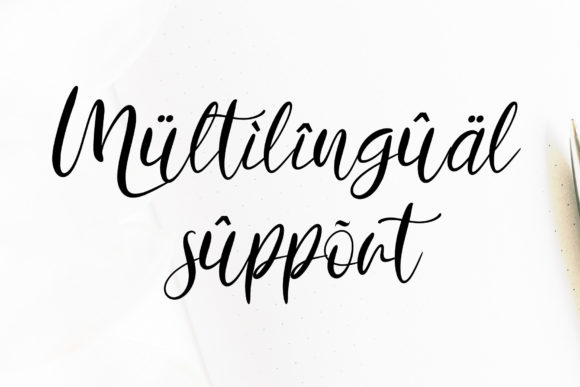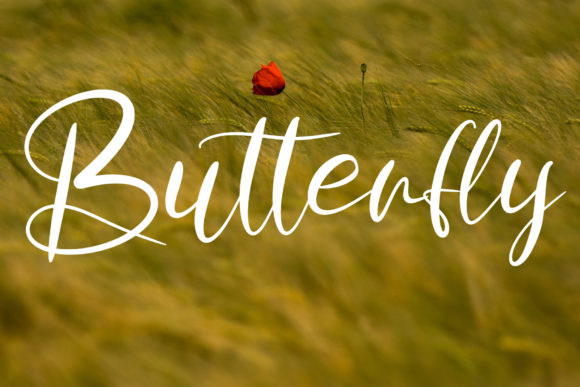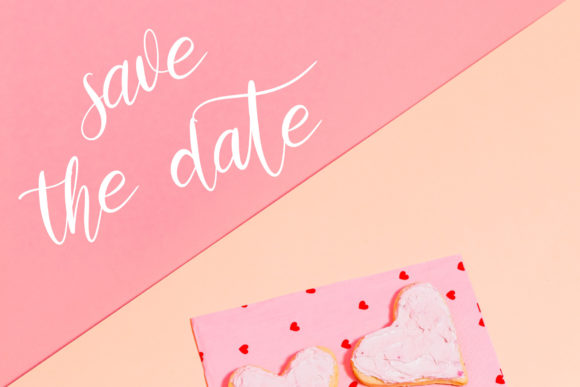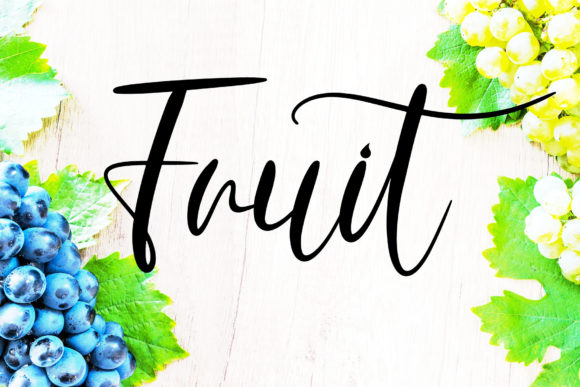
About Forsite Font
Forsite, an exquisite and chic script font, is a perfect choice for a wide range of design applications. Its lovely aesthetic adds a touch of sophistication to various projects, making it versatile and appealing.
Ideal for product packaging, Forsite brings an elegant flair that enhances the visual appeal of your products. The font’s chic design adds a sense of luxury and style, making it well-suited for premium and high-end branding projects. Whether used for cosmetics, fashion, or gourmet products, Forsite elevates the overall look and feel, leaving a lasting impression on consumers.
For magazine covers, Forsite serves as a captivating and stylish option. Its script style effortlessly captures attention, making it a great choice for headlines, subheadings, or any text elements that require a balance of charm and modernity.
In the realm of social media, Forsite stands out, making your posts and messages visually striking. Its chic script lends itself well to various content types, from quotes to promotional materials, enhancing the overall aesthetic of your social media presence.
For weddings, Forsite adds a touch of romance and sophistication to invitations, place cards, and other stationery. The font’s graceful curves and chic style create a harmonious blend, setting the tone for a memorable and elegant celebration.
Moreover, Forsite is versatile enough to be used as a standalone design element, expressing words gracefully against different backgrounds. Whether you’re creating artwork, posters, or any visual content, Forsite provides a stylish and charming typographic choice.
Embrace the beauty of Forsite as it effortlessly weaves elegance into your design projects, making each piece a testament to chic and timeless aesthetics.